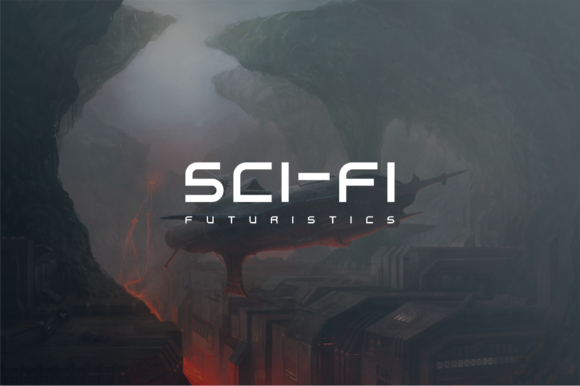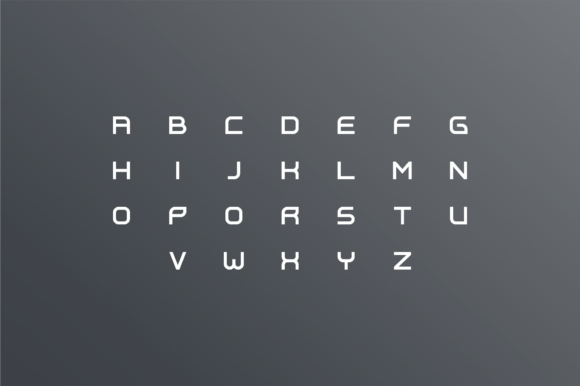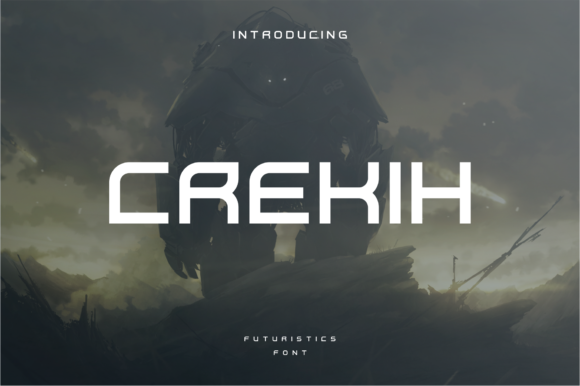
Introducing Crekih Font: A Futuristic Display Font for Modern Designs
In the world of typography, fonts play a crucial role in conveying the tone and personality of a brand or design. For designers and crafters looking for a unique touch, Crekih Font is an excellent choice. This futuristic display font offers rounded and regular corner options, making it versatile and suitable for various design applications.
What is Crekih Font?
Crekih Font is a modern, sans-serif display font designed to add a touch of futurism to your designs. Its clean lines, precise curves, and carefully crafted letterforms make it perfect for headlines, titles, and short texts. The font comes in two styles: rounded and regular, allowing you to choose the one that best fits your design needs.
Key Features of Crekih Font
• Unique Corner Options: Crekih Font offers two corner styles: rounded and regular. The rounded corners give the font a softer, more approachable feel, while the regular corners provide a sharp, modern look.
• Futuristic Design: The font’s futuristic design makes it ideal for modern brands, tech companies, and innovative projects.
• High Versatility: Crekih Font can be used for various design applications, including web designs, business cards, posters, and more.
• Easy to Read: The font’s clear and simple letterforms ensure excellent readability, even at smaller sizes.
Use Cases for Crekih Font
Crekih Font is an excellent choice for various design projects, including:
• Web Designs: Use Crekih Font to create modern, eye-catching headlines and titles for your website.
• Business Cards: Add a touch of professionalism and futurism to your business cards with Crekih Font.
• Posters and Flyers: Crekih Font is perfect for creating bold, attention-grabbing posters and flyers.
• Branding and Identity: Use Crekih Font to create a unique and memorable brand identity for your company or product.
Tips for Using Crekih Font
To get the most out of Crekih Font, follow these tips:
• Pair with Other Fonts: Combine Crekih Font with other fonts to create a unique and harmonious typography system.
• Experiment with Colors: Try different color schemes to find the perfect match for your design.
• Pay Attention to Spacing: Ensure sufficient spacing between letters and lines to maintain readability and visual balance.
Crekih Font is a versatile and modern display font that can elevate your designs to the next level. Its unique corner options, futuristic design, and high readability make it an excellent choice for designers and crafters looking for a fresh and innovative typography solution. Whether you’re working on a web design, business card, or poster, Crekih Font is sure to add a touch of futurism and sophistication to your project.